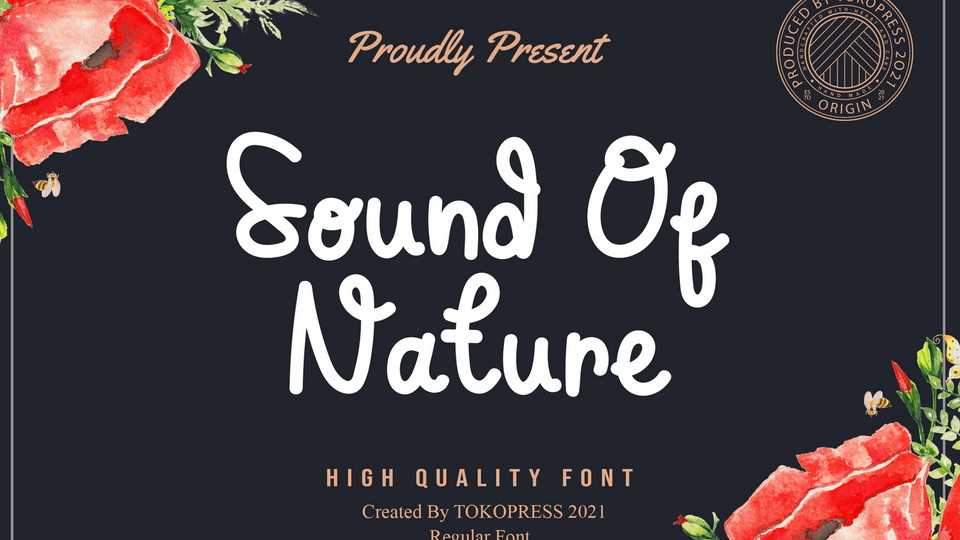
Download Sound of Nature font, a cute fancy typeface. The cute curl on the letters, it’s like a wavy hair of a beautiful lady. Hence, the Sound of Nature brings natural beauty and cuteness to the design you created.